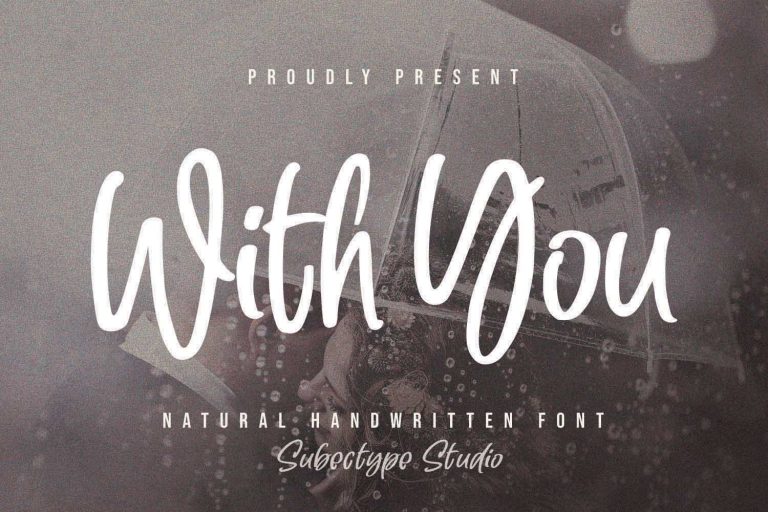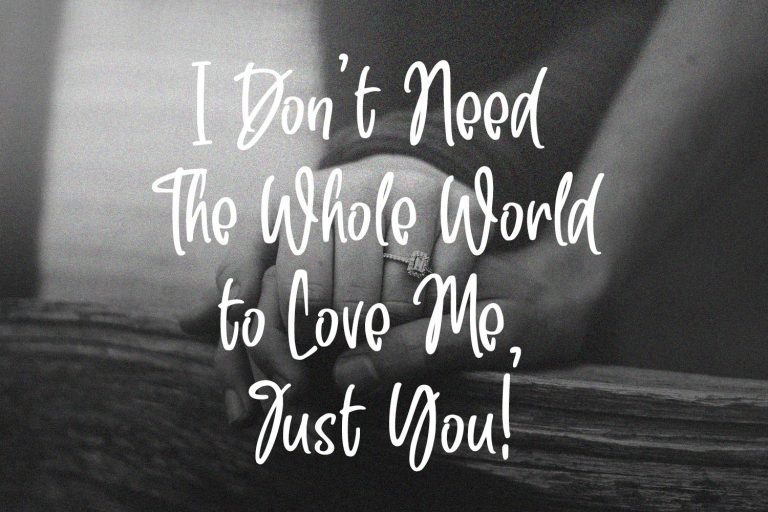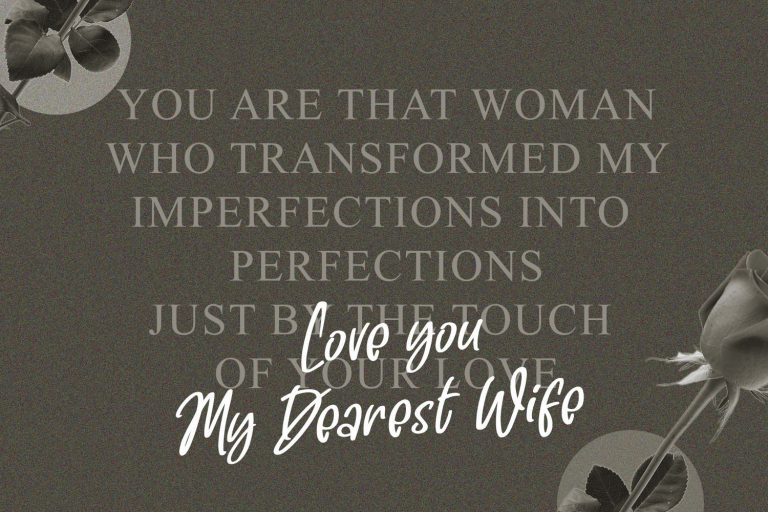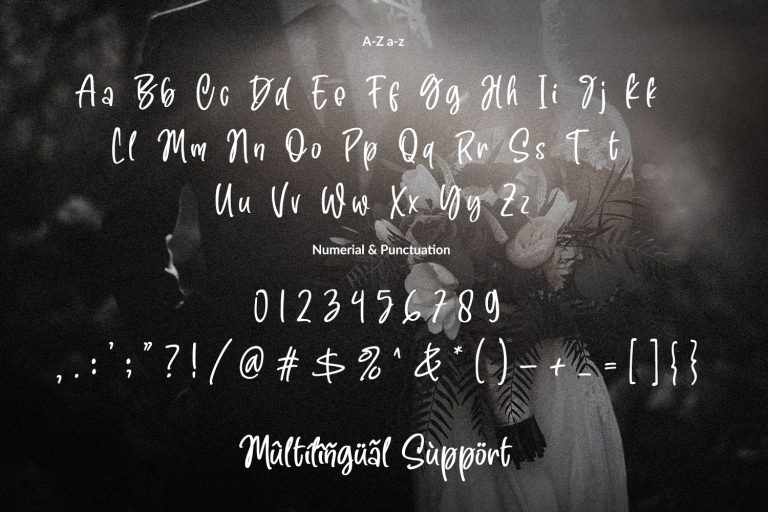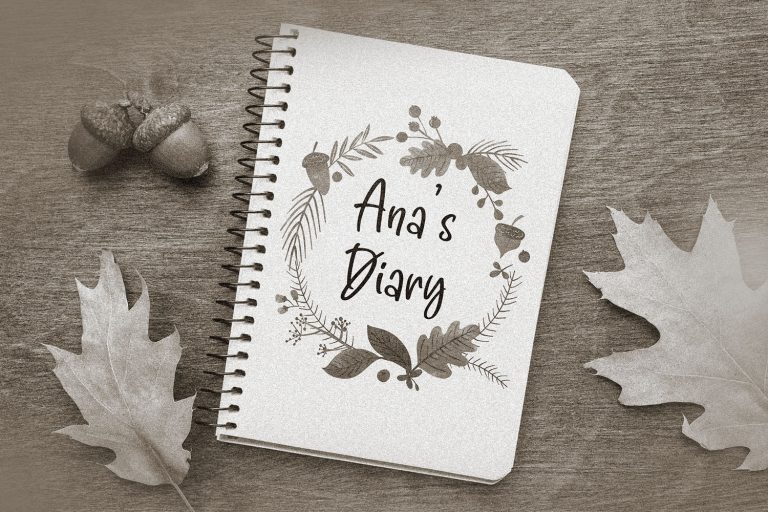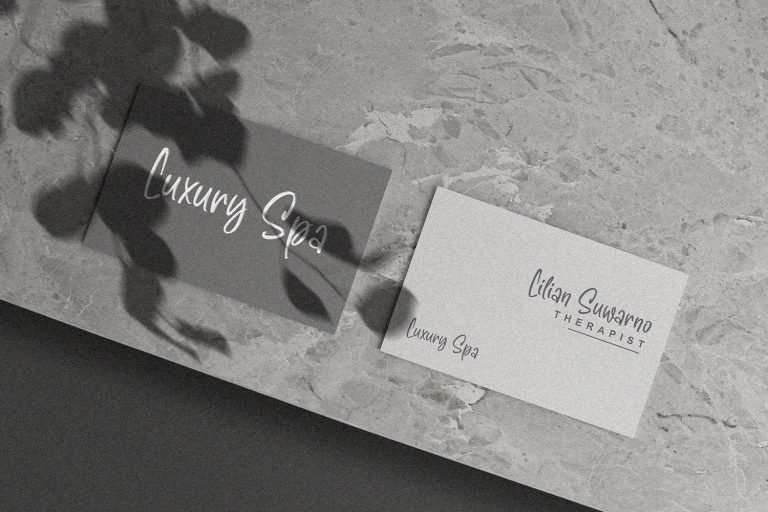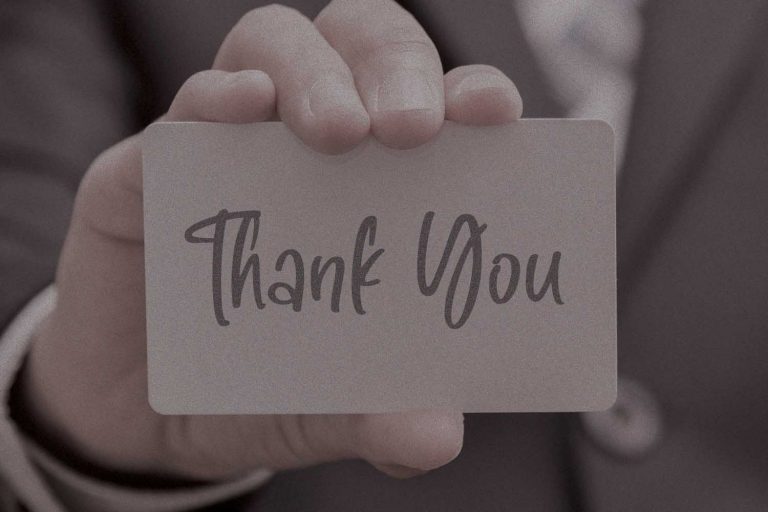
With You – Natural Handwritten Font
With You
With you is a sweet brushed handwritten font. Its natural and unique style makes it incredibly fitting to a wide spectrum of ideas.